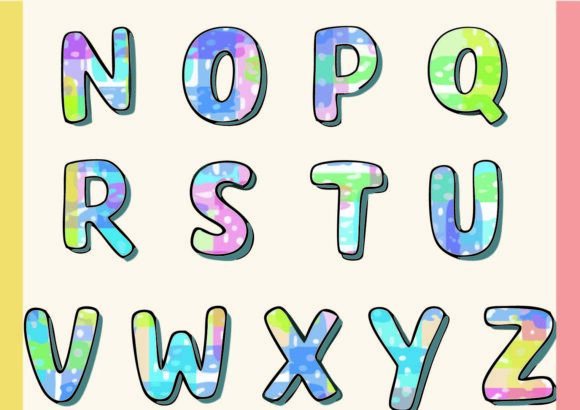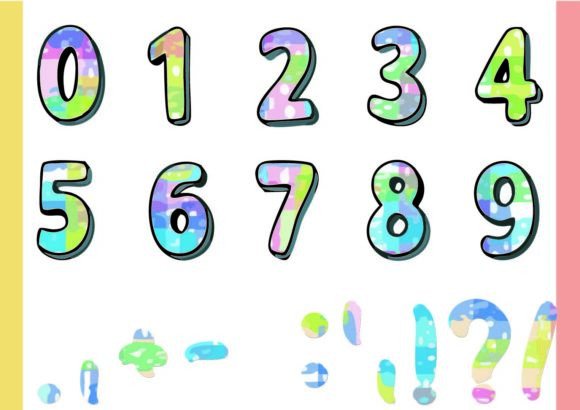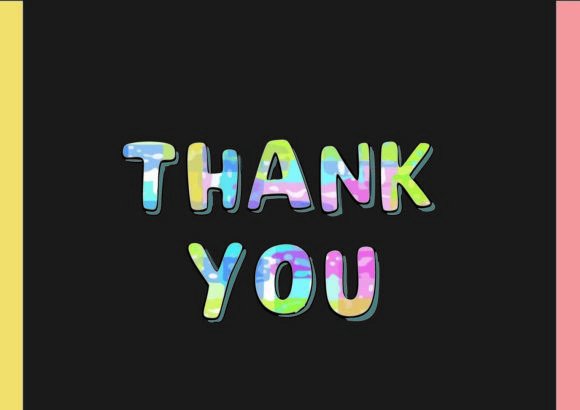
Bella Font: A Colorful Heaven for Designers and Crafters
Are you tired of using the same old fonts in your designs? Do you want to add a pop of color and creativity to your projects? Look no further than Bella Font, a stunning color font that is sure to take your designs to the next level. In this article, we’ll dive into the world of Bella Font and explore its features, benefits, and uses.
What is Bella Font?
Bella Font is a color font, also known as a chromatic font, that features a unique set of colors for every single glyph. This means that each letter, number, and symbol in the font has its own distinct color palette, creating a beautiful and eye-catching effect. The font is designed to be a work of art, with complex sets of paths and connections in every glyph, making each one a typographic painting.
Features of Bella Font
- Colorful and vibrant: Bella Font is a color font that adds a pop of color to your designs, making them stand out from the crowd.
- Unique glyphs: Every single glyph in Bella Font has a different set of colors, ensuring that your designs are always unique and interesting.
- Complex design: The font features complex sets of paths and connections in every glyph, making each one a miniature work of art.
Benefits of Using Bella Font
So why should you use Bella Font in your designs? Here are just a few benefits:
- Adds visual interest: The colorful and unique glyphs in Bella Font add visual interest to your designs, making them more engaging and attention-grabbing.
- Stand out from the crowd: With Bella Font, you can create designs that stand out from the crowd and showcase your creativity.
- Versatile: Bella Font can be used in a variety of design projects, from digital graphics to print materials.
Uses of Bella Font
Bella Font is perfect for designers and crafters who want to add a touch of color and creativity to their projects. Here are some ideas for using Bella Font:
- Digital graphics: Use Bella Font to create stunning digital graphics, such as social media posts, blog headers, and email newsletters.
- Print materials: Add a pop of color to your print materials, such as business cards, brochures, and flyers.
- Crafting: Bella Font is perfect for crafters who want to add a personal touch to their projects, such as handmade cards, scrapbooking, and iron-on designs.
- Branding: Use Bella Font to create a unique and memorable brand identity for your business or personal project.
In conclusion, Bella Font is a stunning color font that is sure to add a touch of creativity and color to your designs. With its unique glyphs, complex design, and compatibility with popular software, Bella Font is perfect for designers and crafters who want to take their projects to the next level. Whether you’re looking to create digital graphics, print materials, or handmade crafts, Bella Font is a versatile and easy-to-use font that is sure to impress.